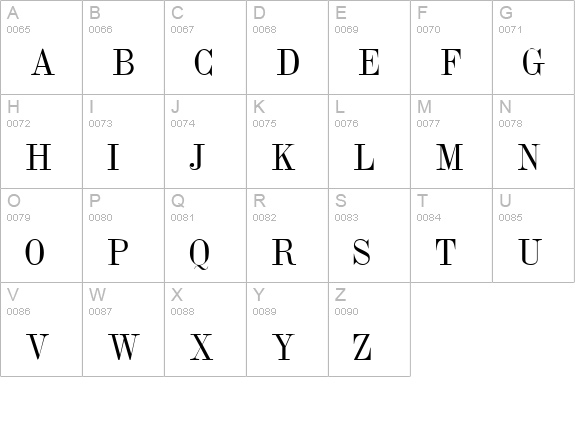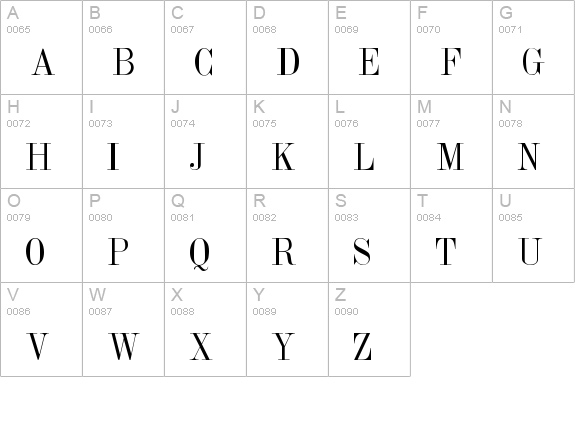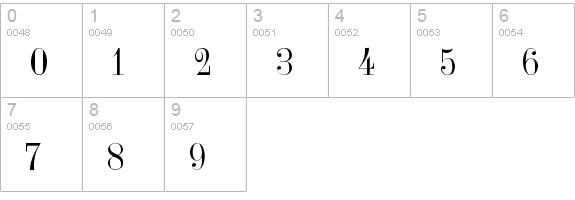
Dubiel Regular is the standard, neutral variant in the Dubiel typeface family \xE2\x80\x94 well suited to general body text, paragraphs, and standard typographic work.
Dubiel Regular font is a classic and versatile typeface that exudes elegance and sophistication. Its clean lines and balanced proportions make it perfect for a wide range of design projects, from invitations to branding to editorial design. With a timeless appeal and a touch of modernity, Dubiel Regular font strikes the perfect balance between tradition and innovation. Best of all, Dubiel Regular font is available for free download at FontsMarket.com. This means you can easily access and use this stunning typeface in your projects without any cost. Whether you're a seasoned designer looking for a reliable go-to font or a beginner exploring typography for the first time, Dubiel Regular font is a fantastic choice that won't break the bank. Download it today and elevate your designs with this elegant and versatile typeface.